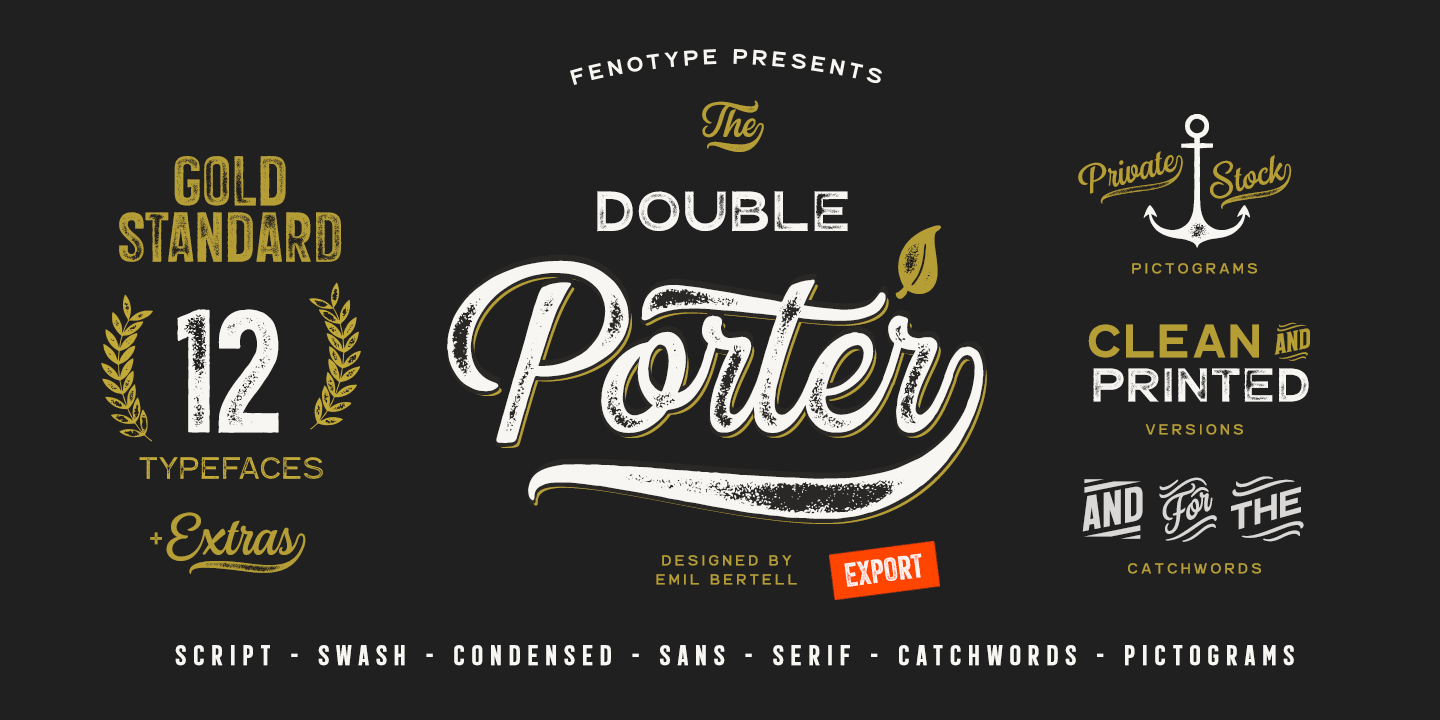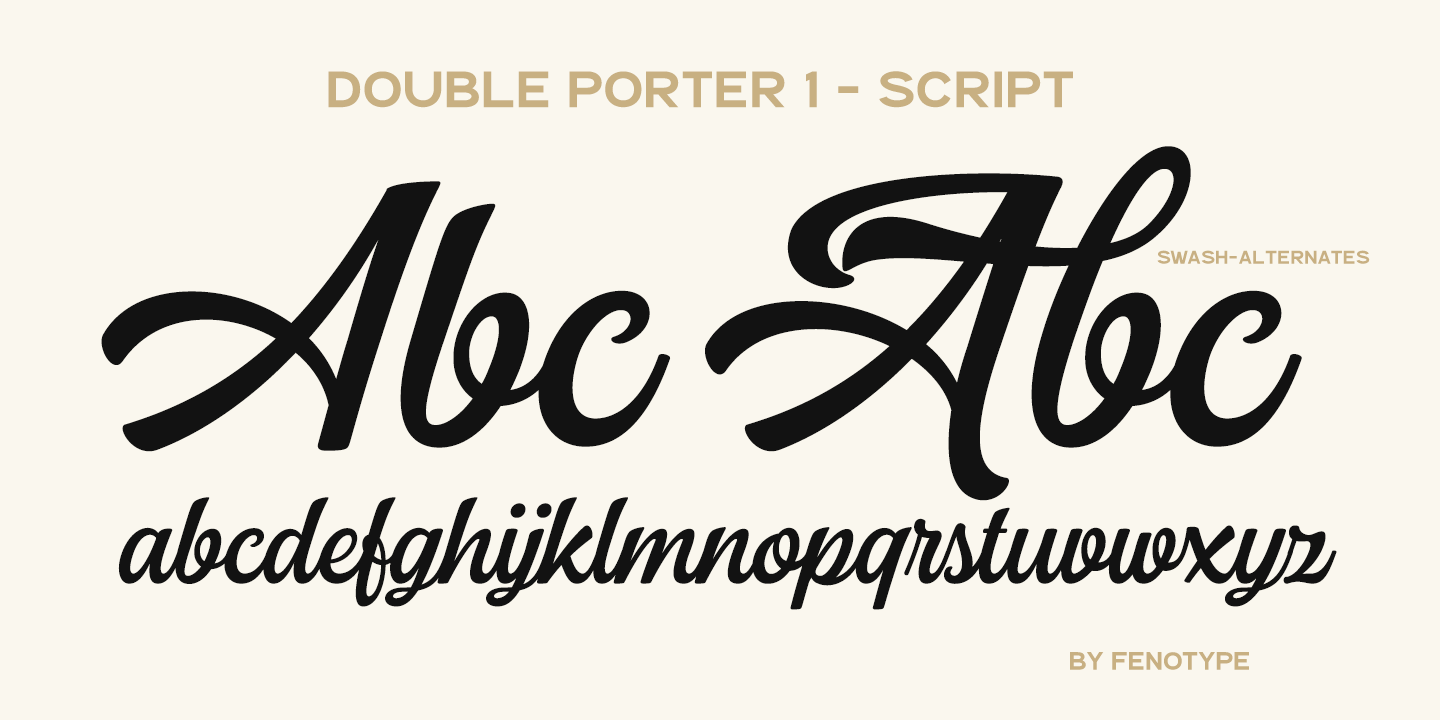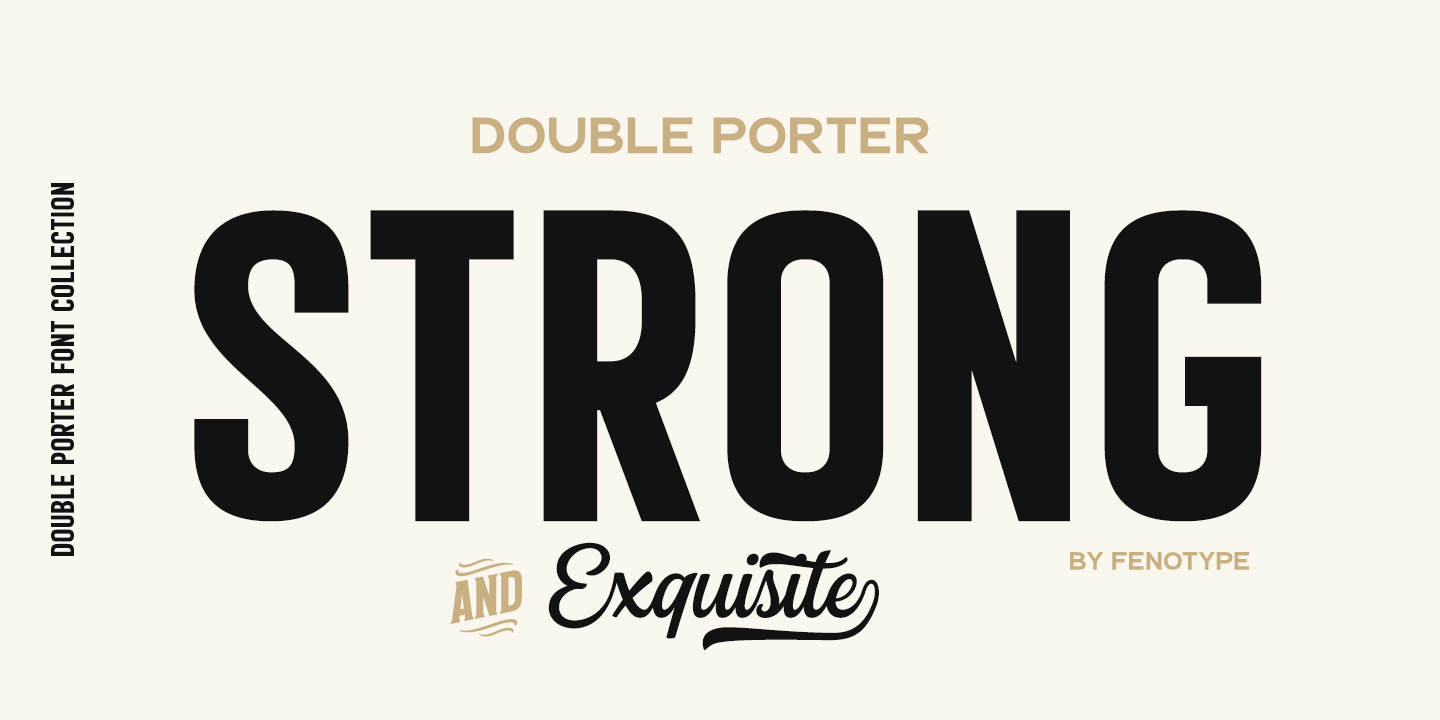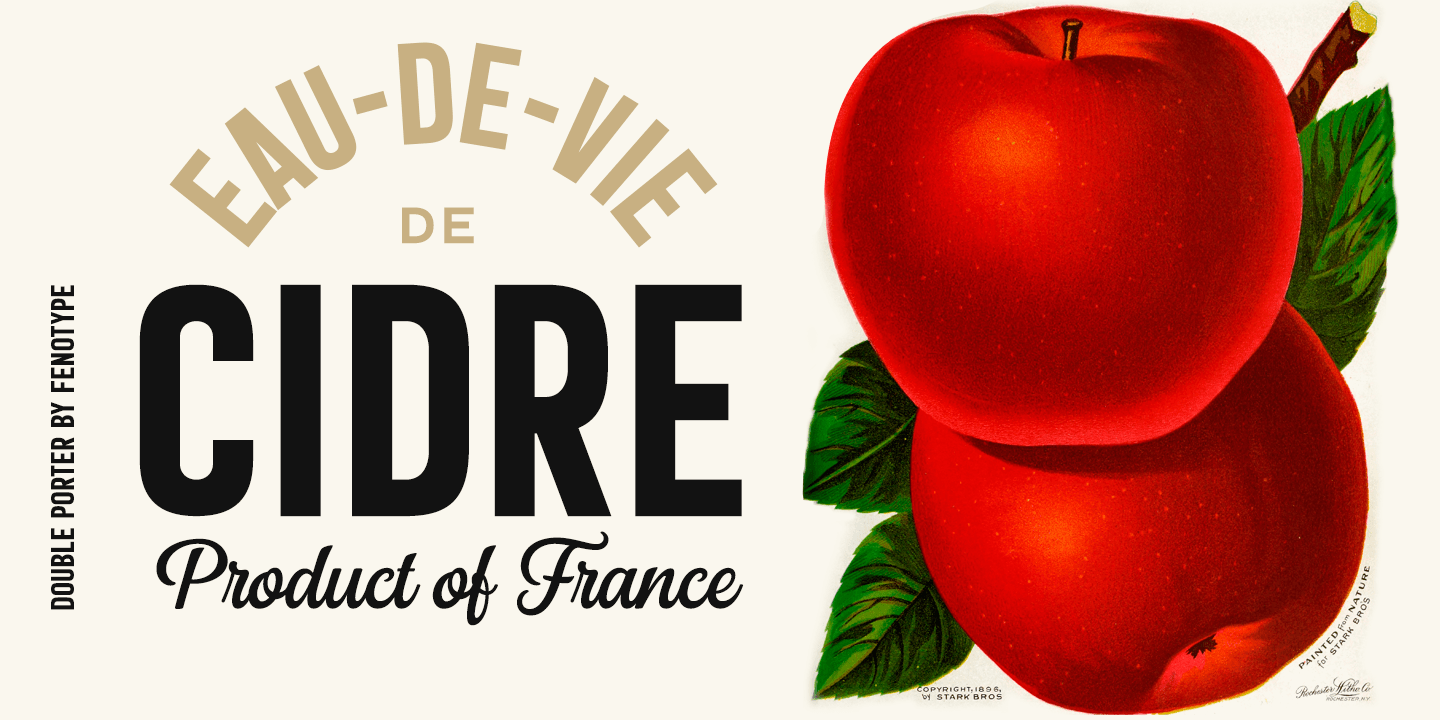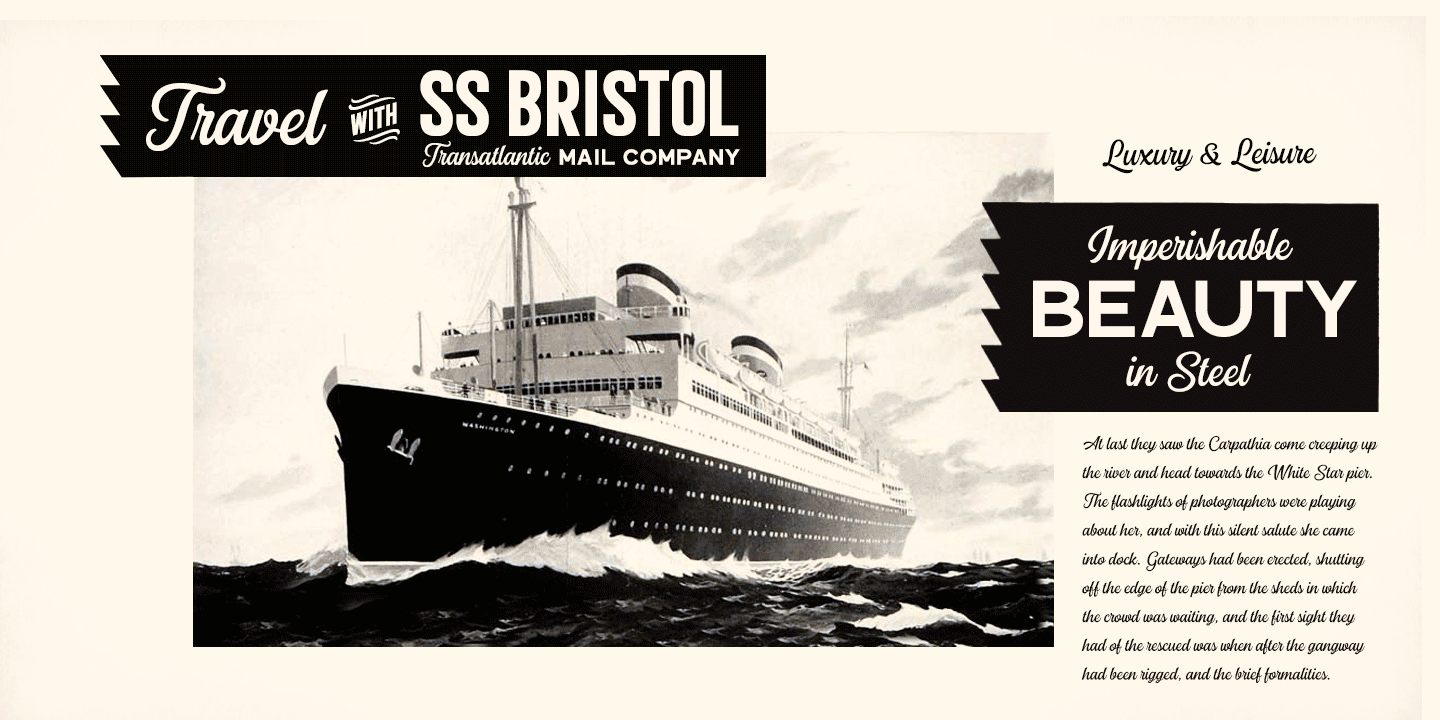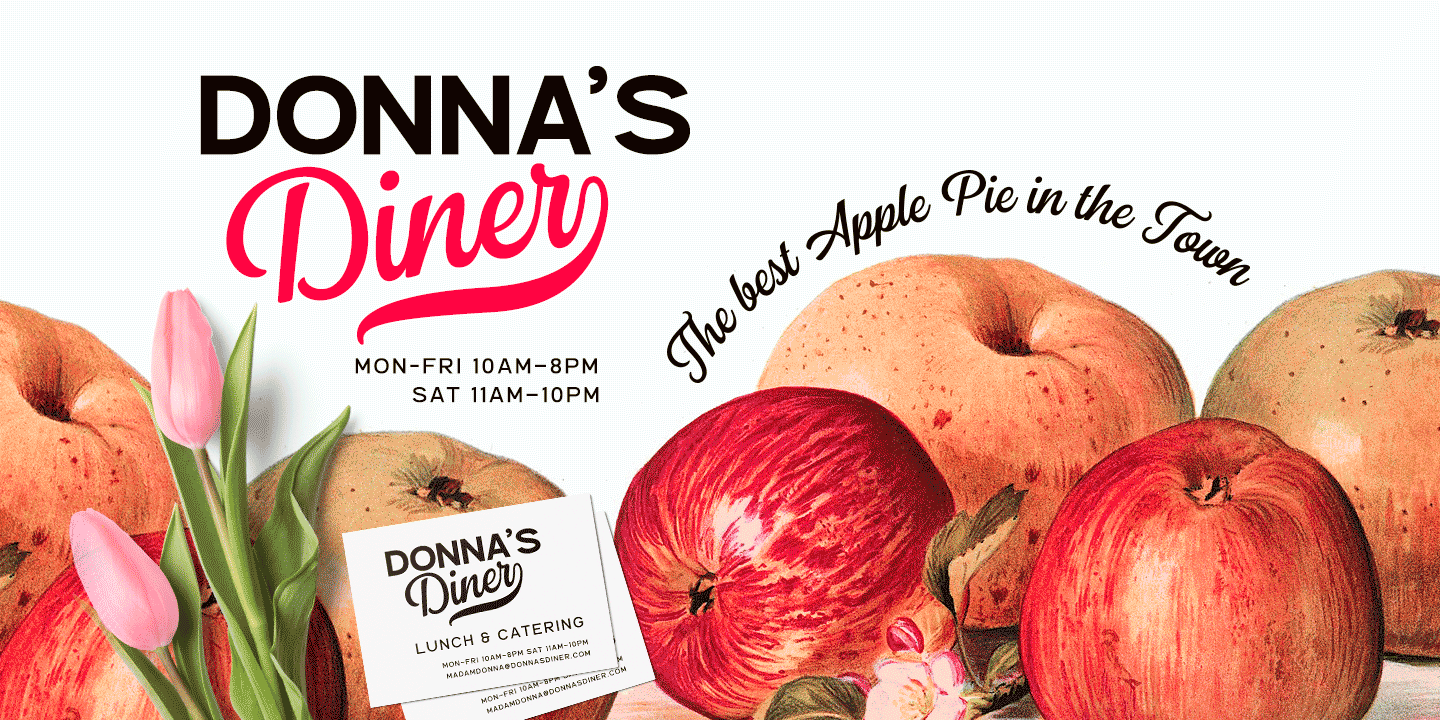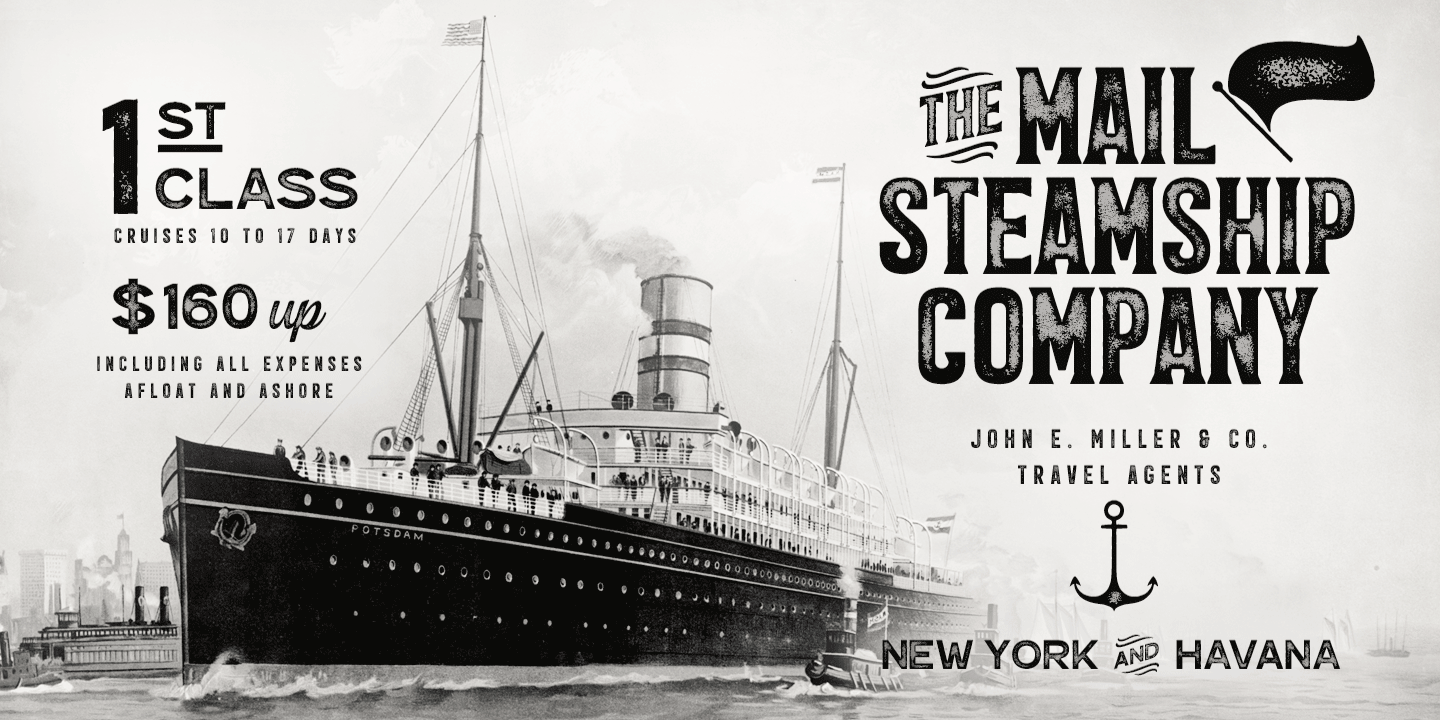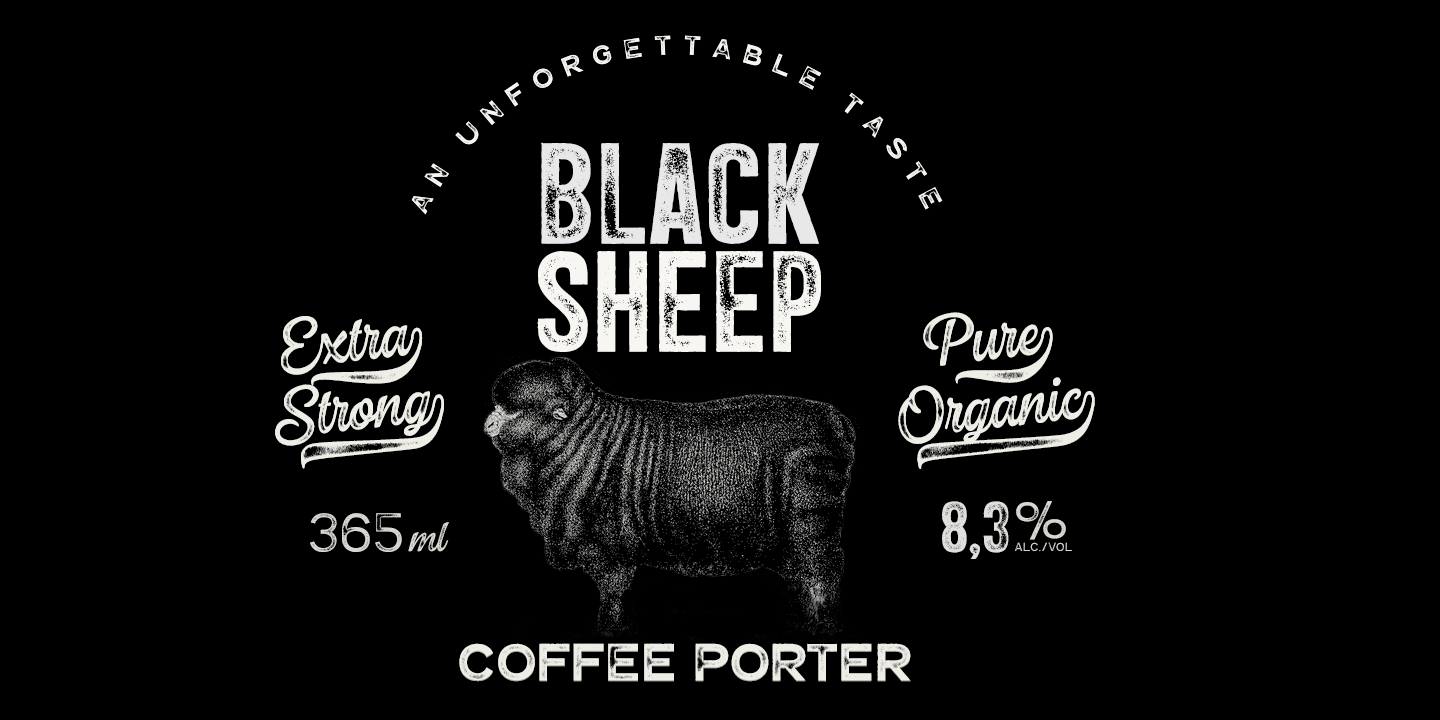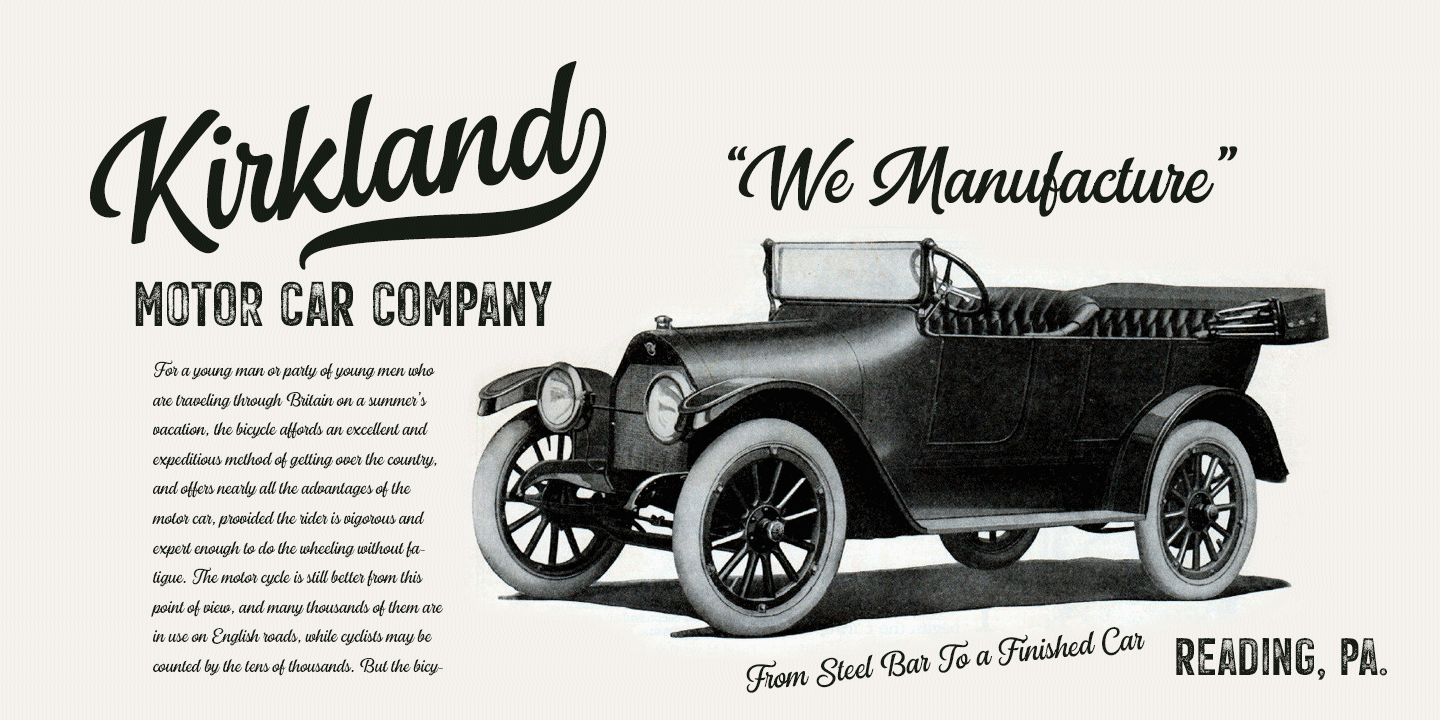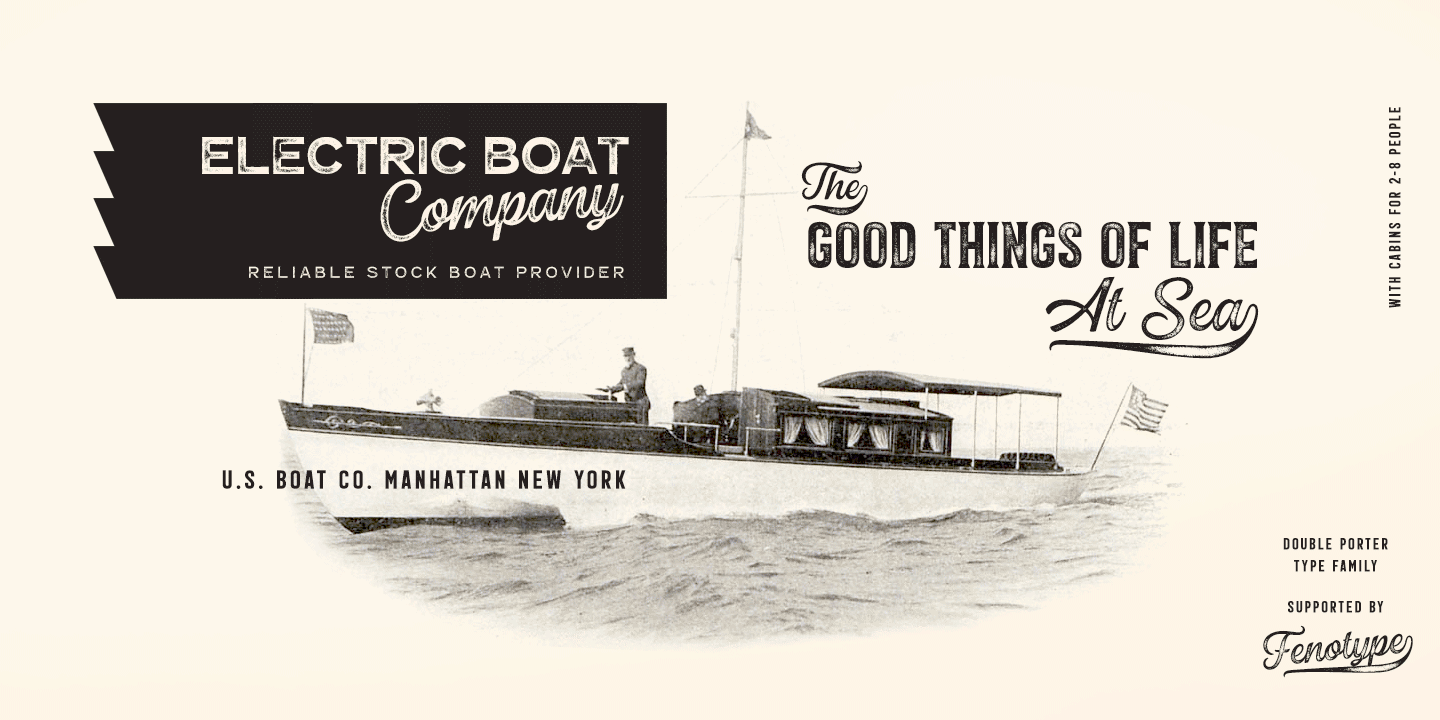
Double Porter
Font Family by Fenotype
Double Porter includes the following:
6 Fonts with a clean and textured version of each
Ornaments
Catchwords
Ending swash ornaments for the script
Double Porter is a clean cut script font paired with five strong sans fonts. All the fonts are designed to work well together.
Double Porter 1 – Clean connected script with Swash Alternates for caps and lowercase letters with ascenders or descenders. Includes Contextual Alternates for smooth flow (enabled automatically).
Double Porter 2 – Wide Sans Serif font.
Double Porter 3 – Bold version of Double Porter 2.
Double Porter 4 – Semi-condensed Sans Serif.
Double Porter 5 – Condensed Bold Sans Serif.
Double Porter 6 – Serif version of Double Porter 5.
Double Porter 7 – Set of 60 icons and ornaments.
Double Porter 8 – Set of 68 catchwords.
Double Porter 9 – Set of 62 ending swashes and strokes designed to pair with Double Porter 1.
Each Double Porter font also comes with a “Printed” version, named Double Porter P x. These are the same fonts, but with rugged outlines and a worn-out texture for a vintage feel.
Double Porter supports a wide range of languages, including West European, Central European, Baltic, Turkish, and Romanian character sets.